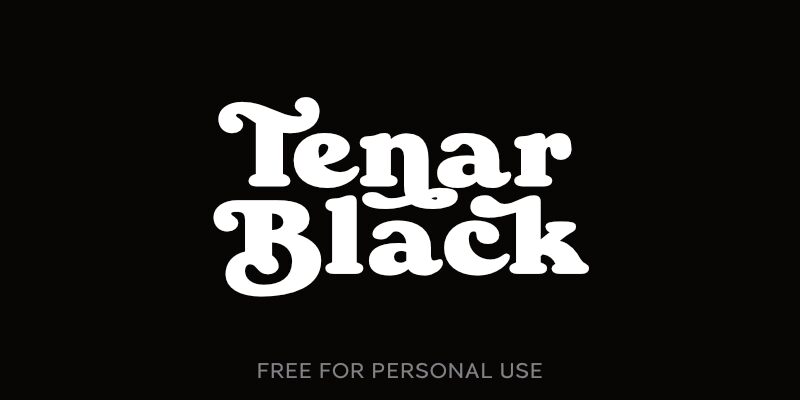
Tenar Black, designed by Wahyu & Sani Co., is a captivating display font that embodies the essence of retro serif style. With its extra-bold weight, it demands attention and adds a touch of nostalgia to any project.
Whether you're designing a vintage-inspired logo, creating eye-catching posters, or crafting stylish packaging, Tenar Black is the perfect choice. Developed by the FaceType foundry in Vienna, Austria, this font ensures top-notch quality at an affordable price.
Explore the rich history of design with Tenar Black and elevate your creations to new heights.